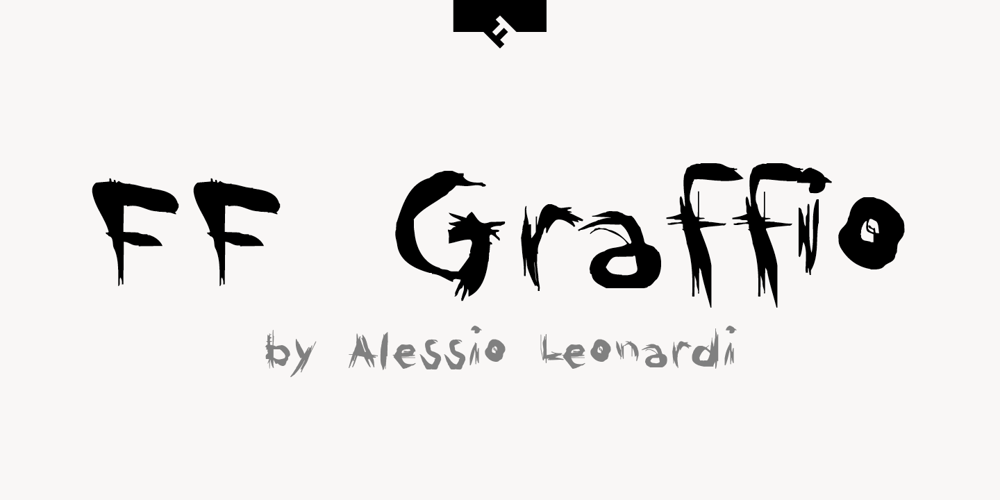
FF Graffio Font Family was designed by Alessio Leonardi and published by FontFont. FF Graffio contains 3 styles and family package options. Italian type designer Alessio Leonardi created this script FontFont in 1995. The family contains 3 weights and is ideally suited for festive occasions, editorial and publishing as well as poster and billboards. FF Graffio provides advanced typographical support with features such as ligatures and alternate characters. It comes with proportional oldstyle figures.